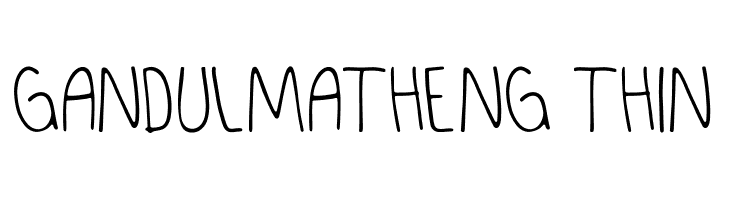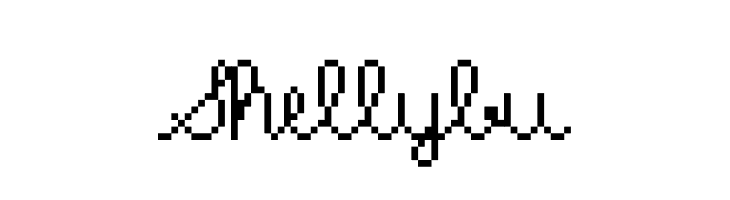
A bold, jagged, hand-drawn font with a rebellious, graffiti-like style.
A whimsical, hand-drawn font with a playful and organic style.
A dynamic and expressive script font with fluid, cursive strokes.
A modern, handwritten cursive font with smooth curves and dynamic slant.
A playful, casual handwritten font with smooth, rounded edges.
A playful, thin, handwritten font with a casual and whimsical style.
A bold, playful handwritten font with rounded, irregular letterforms.
A bold, pixelated decorative font with a retro digital style.
A pixelated cursive font blending digital and handwritten styles.
A pixelated, retro font with a blocky, geometric style.